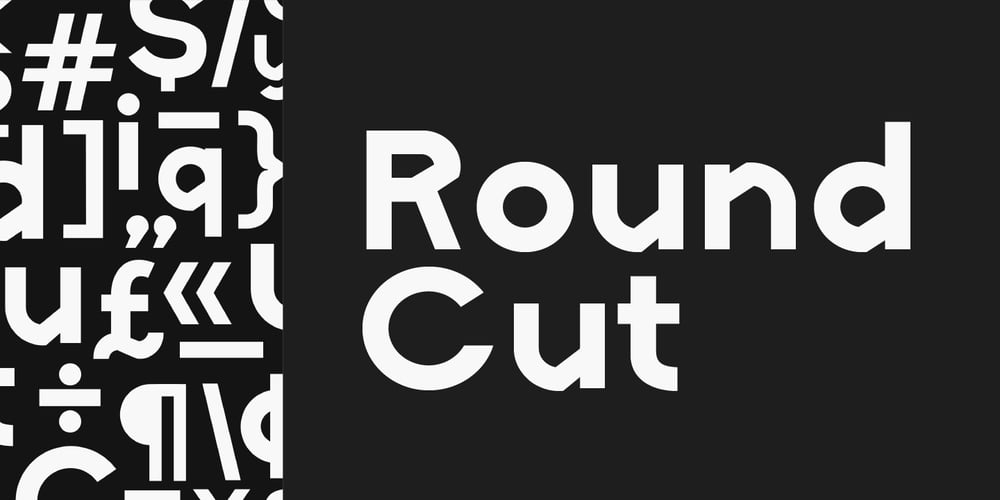
RoundCut Font Family was designed by Fábio Mansos and published by Fábio Mansos. RoundCut contains 1 styles and family package options. RoundCut Bold is a geometric grotesque typeface, ideal for large sizes (display proposals and headlines). Its structure is modern, strong and bold, noticeable in its minimal and geometrically forms. Although visually simple, the construction of each letter form is complex allowing some expression and uniqueness to the typeface.